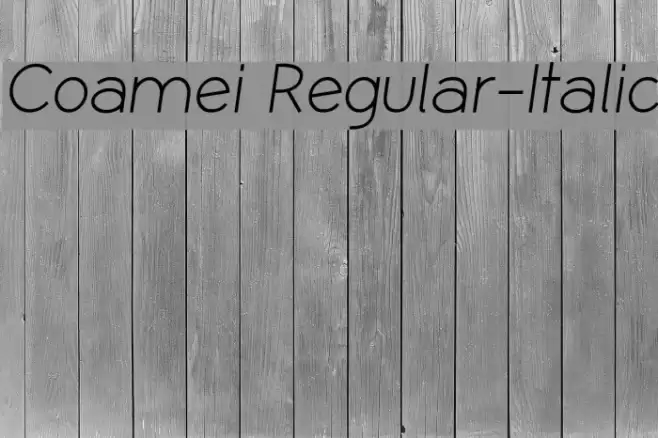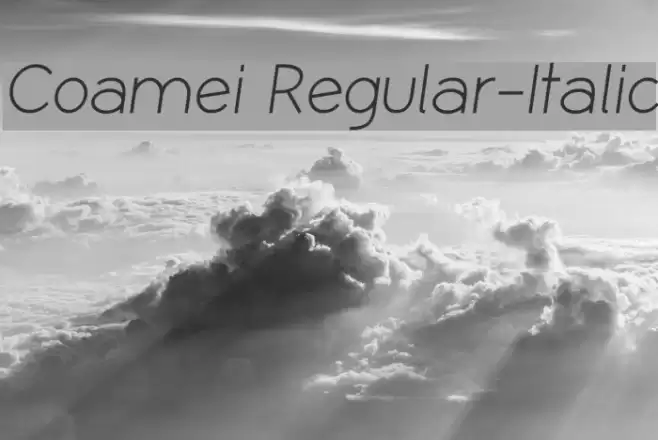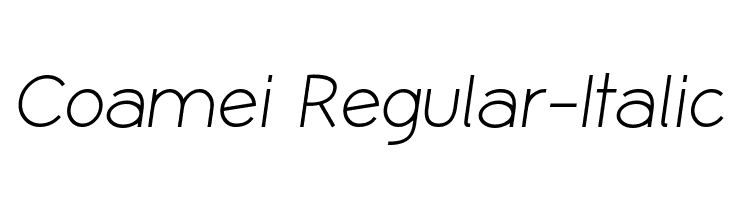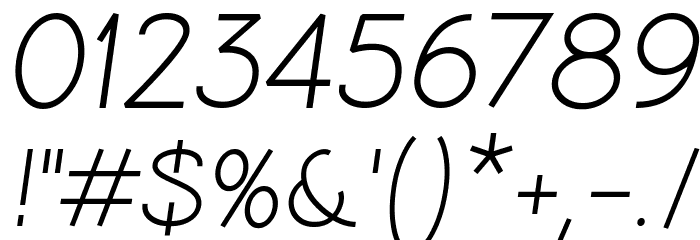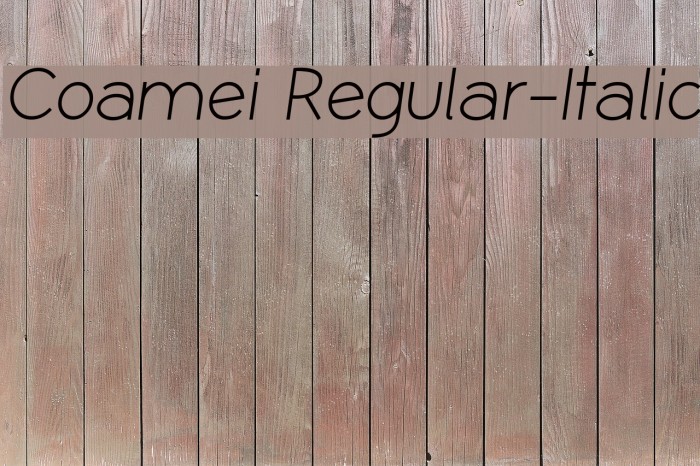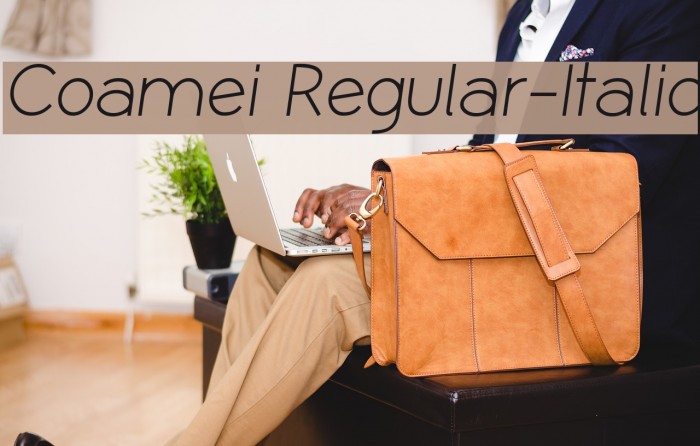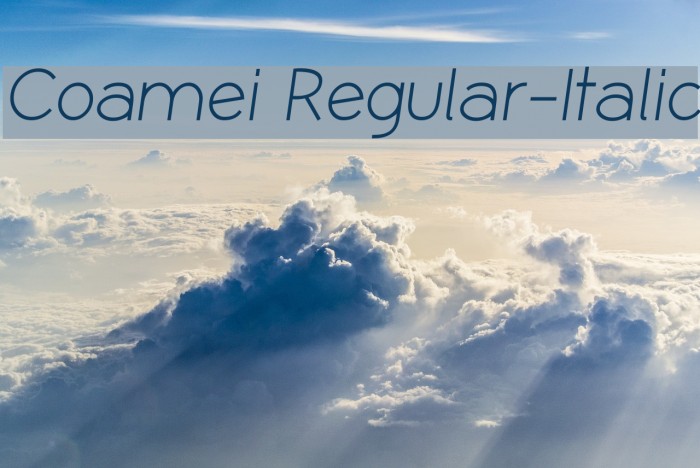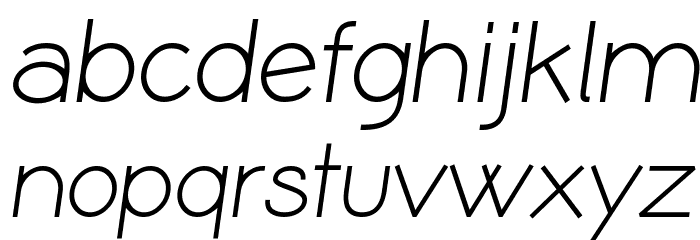
Coamei Regular-Italic Font
Coamei Regular-Italic Description
This font features a sleek and modern design with a subtle italic slant, giving it a dynamic and elegant appearance. The characters are crafted with a consistent stroke width, providing a clean and uniform look. The uppercase and lowercase letters are well-proportioned, with a slight curvature that adds a touch of sophistication. The numerals are clear and legible, making them suitable for various applications. Special characters are included, maintaining the font's cohesive style. Overall, this font exudes a contemporary vibe, perfect for projects that require a stylish and professional touch.
A sleek, modern italic font with consistent stroke width and elegant curvature from Uncategorized fonts.
- Proposed Projects: Ideal for branding, editorial design, advertising, and digital interfaces.